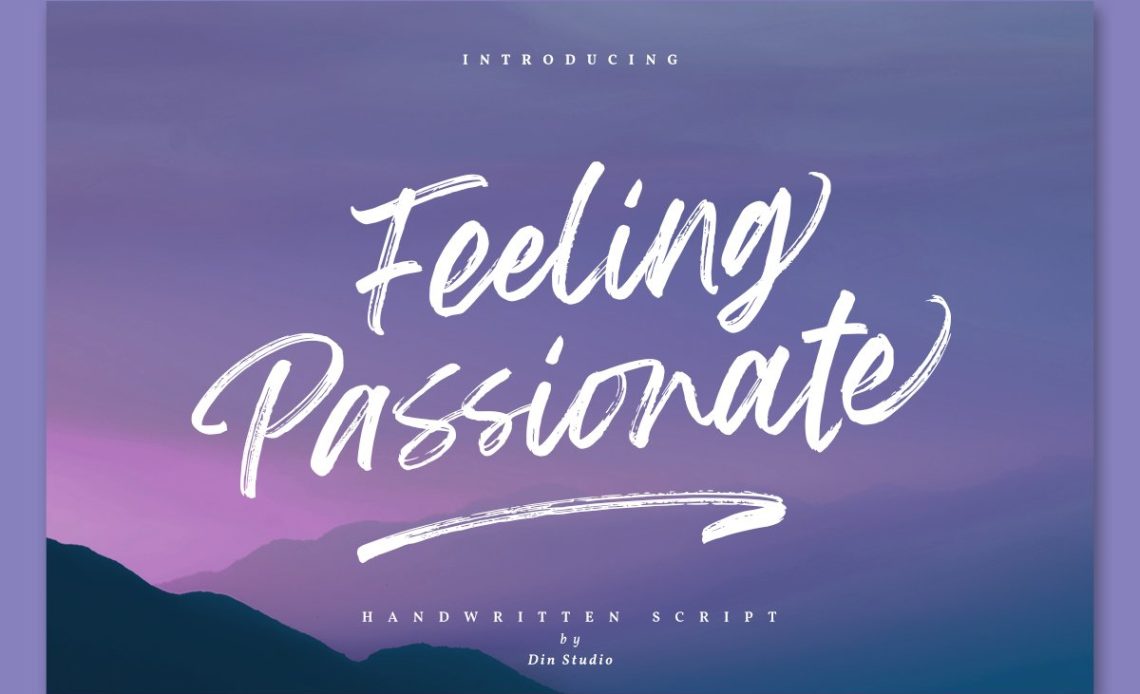
Looking for the best font for your web page text? Look no further than Feeling Passionate, the stunning brush font created by Donis Miftahudin. This casual and beautiful script font is the perfect choice for any design project, adding a touch of elegance and personality to your work.
With 78 beautiful alternates, 15 ligatures, and 52 swashes, Feeling Passionate offers endless possibilities for creativity and customization. The font is also PUA encoded and supports multiple languages, making it an ideal choice for designers from all over the world.
Feeling Passionate is suitable for a wide range of design projects, including posters, banners, logos, book covers, headings, printed products, merchandise, social media, and more. The font preview provides a glimpse of the font's potential, and you'll be amazed at the beautiful results you can achieve with this versatile font.
Not only does Feeling Passionate look great, but it's also easy to use. Whether you're an experienced designer or a beginner, you'll find this font easy to work with, and it will quickly become your go-to choice for any project.